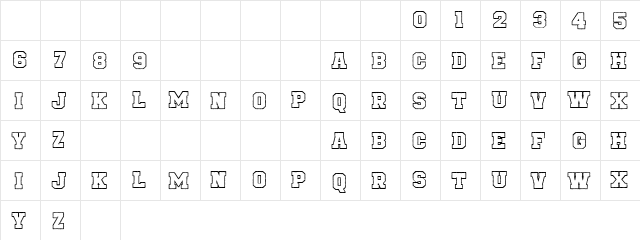
CF University of Nowher Outline Outline
Design Context for CF University of Nowher Outline Typeface
CF University of Nowher Outline brings ornamental detail and strong personality to headlines and identities, where visual impact matters more than quiet functionality.
Font Pairing: Pair with a clean neutral sans-serif for body copy to let CF University of Nowher Outline's character lead without overwhelming the composition.
Pro Tip: Use CF University of Nowher Outline exclusively at display sizes — it was designed to be seen, not read at length. Let a neutral companion handle body copy.